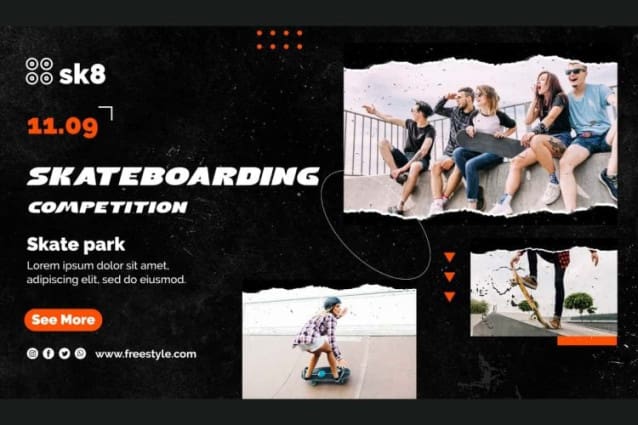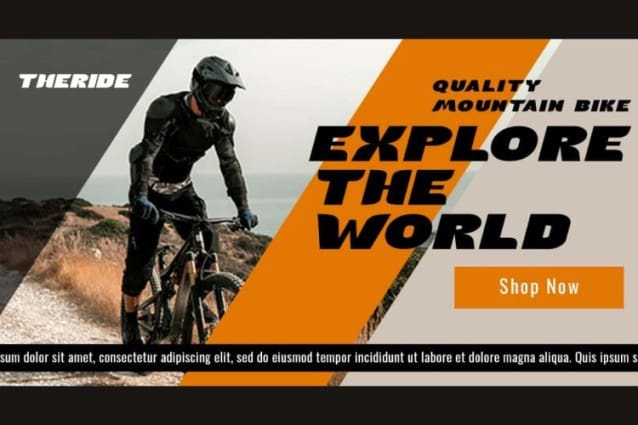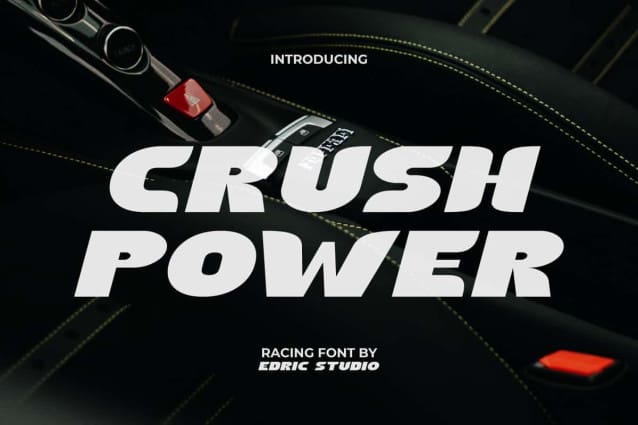
Crush Power Font
Crush Power Font is a playful bold font in a racing sports theme that features uppercase letters with a strong and firm impression. This font will give more personality to your bold titles. Perfect for eye-catching as a text, blogs, brochure, business card, headers, headlines, labels, logos, poster, print materials, websites and more!!
Crush Power Font is a sporty racing font that is very dashing because its shape is really made in a stunning and modern way. The font includes a complete set of ALL CAPS for both Upper and Lower case letters, Numbers, Punctuation, and Symbols. Use it in your projects in areas such as bicycle, clothing brand, corporate business, graphic design, sport, vehicle, virtual reality and many others.